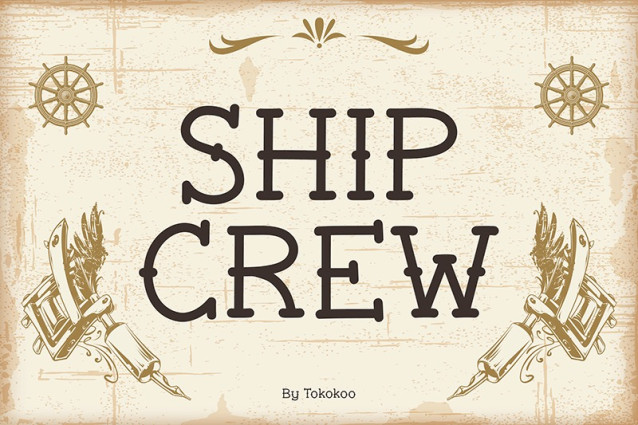
Ship crew Font
Ship crew Font is a unique typeface inspired by nautical themes and tattoo art. It blends vintage maritime aesthetics with bold, decorative lettering, making it perfect for adventurous and nostalgic designs. The bold letterforms feature aged textures that replicate the look of classic sailor tattoos. Additionally, decorative elements like ship wheels, anchors, and quills enhance its charm and authenticity.
This font works well for retro or maritime-themed projects. Its distressed textures add a handcrafted, aged feel, perfect for designs with a rugged and natural aesthetic. Despite its decorative appearance, the Tattoo Font Shipcrew remains highly readable in headlines, logos, or body text. Furthermore, its versatility allows seamless use across digital platforms, print materials, and branding. Whether creating logos, invitations, or tattoo-inspired artwork, this font provides both style and functionality.
Tattoo Font Shipcrew combines vintage charm with modern usability. It suits a wide range of creative projects, from branding and merchandise to event promotions and packaging. Whether designing for a nautical business or crafting sailor-themed designs, this font offers a balance of style and practicality.
This font is ideal for professionals and creative enthusiasts. Tattoo artists can use it for shop logos, promotional materials, or custom tattoo designs. Its connection to tattoo culture and maritime themes makes it especially appealing to this audience.
Branding specialists will find the Tattoo Font Shipcrew perfect for nautical or vintage-themed projects. It is ideal for businesses such as seafood restaurants, tiki bars, or beach resorts. Its bold yet intricate design leaves a lasting impression while enhancing a brand’s identity.
Graphic designers can use this font to create posters, product labels, or album covers. Its textured aesthetic is perfect for designs needing an adventurous and weathered look. Additionally, marketing professionals can rely on it to create themed event materials, flyers, or social media graphics.
Bloggers and content creators focusing on travel, adventure, or history will also benefit from this font. Its timeless appeal and thematic design can enhance their storytelling and visual style.
In conclusion, the Tattoo Font Shipcrew is versatile and stylish. It caters to tattoo artists, branding experts, and designers. With this font, creating memorable and impactful designs becomes effortless.